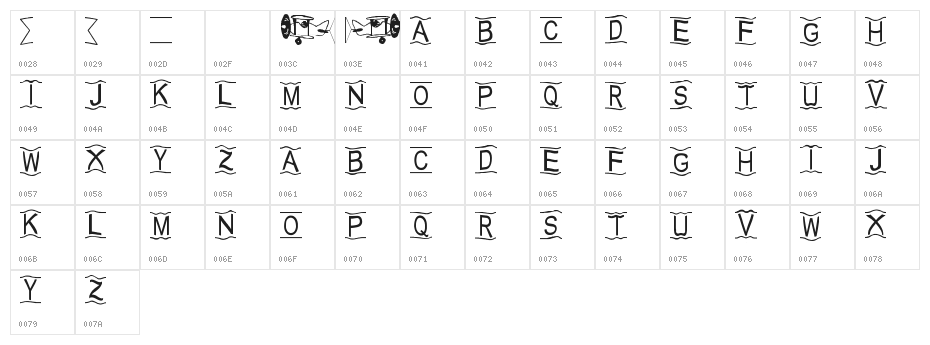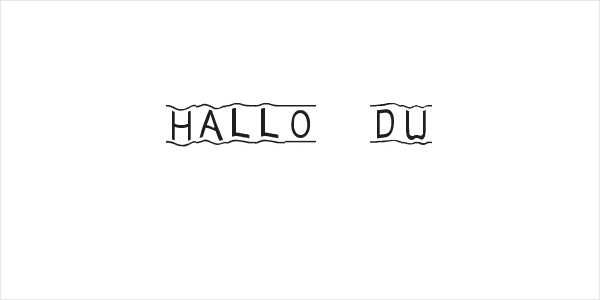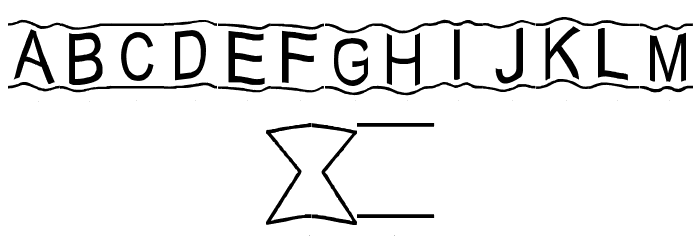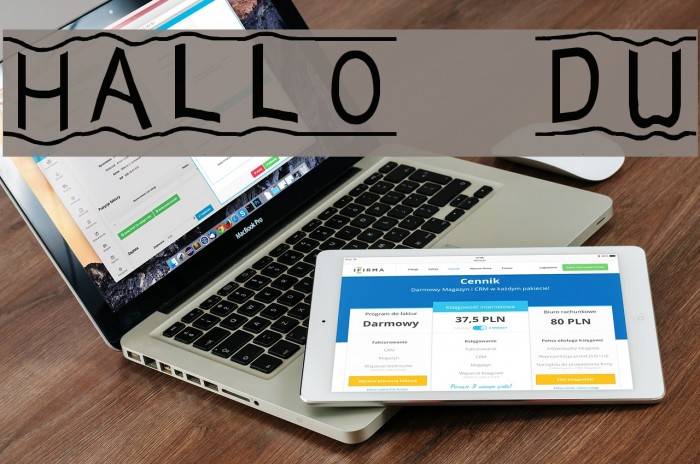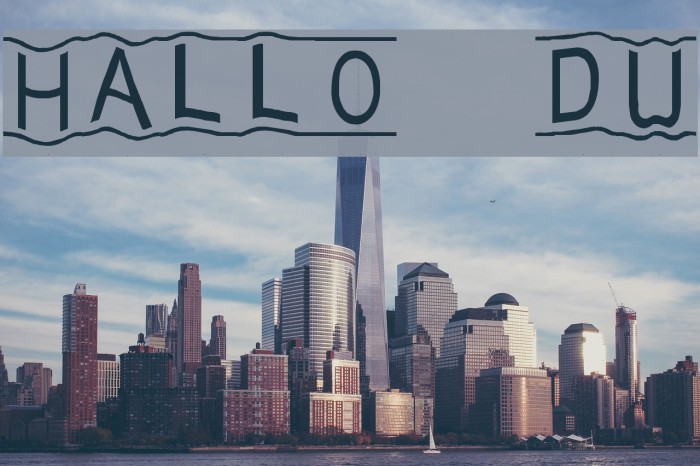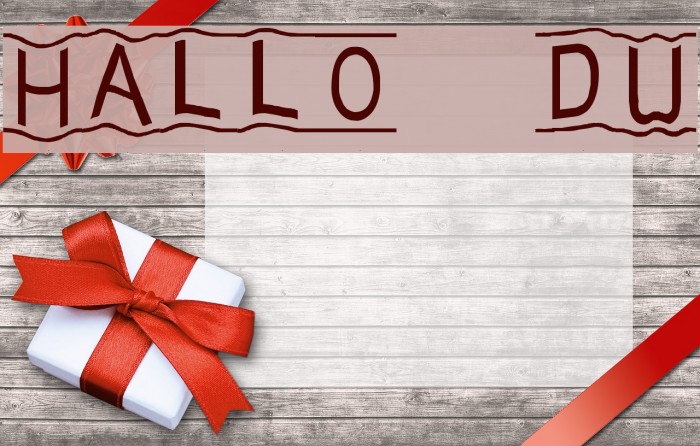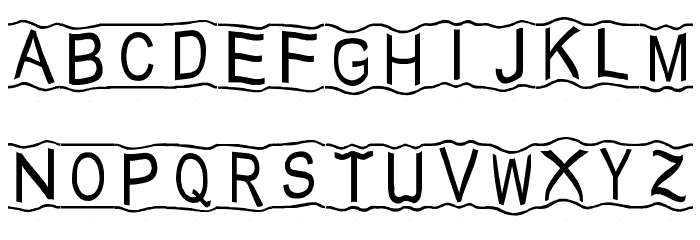
Hallo du! Font
Hallo du! Description
This font features a playful and wavy design, where each character appears to be dancing along a curved baseline. The uppercase letters are bold and distinct, with a consistent stroke width that gives them a strong presence. The style is reminiscent of a handwritten script, yet maintains a structured and legible form. The unique wavy alignment adds a whimsical and dynamic feel, making it suitable for creative and informal projects. The font's design is both eye-catching and readable, making it versatile for various uses.